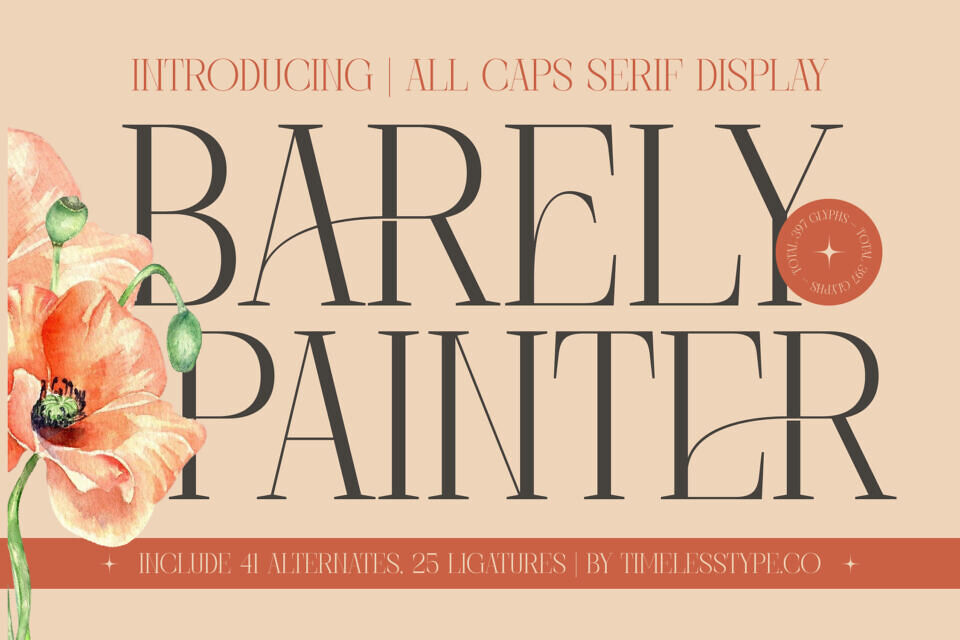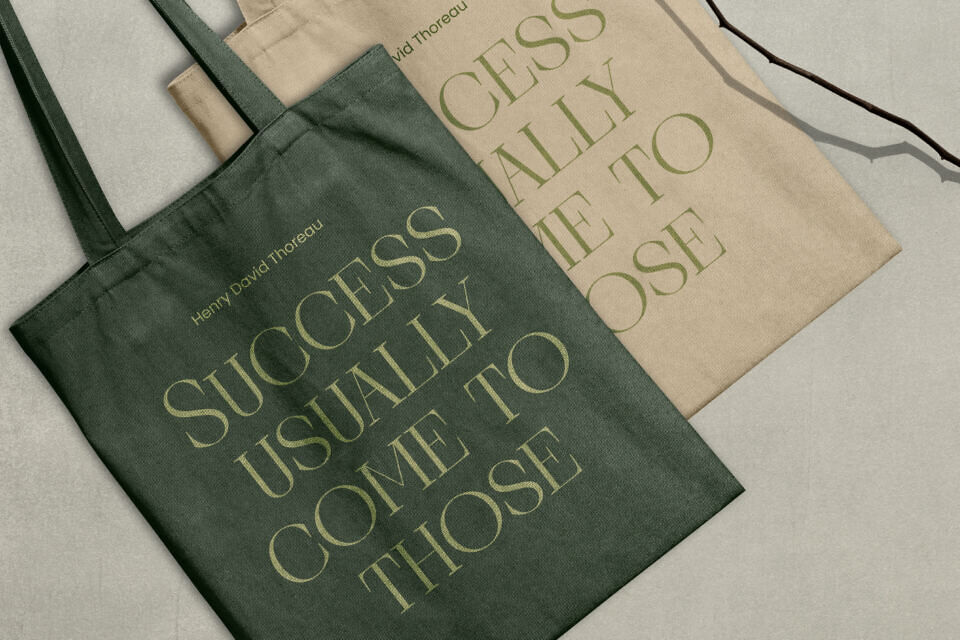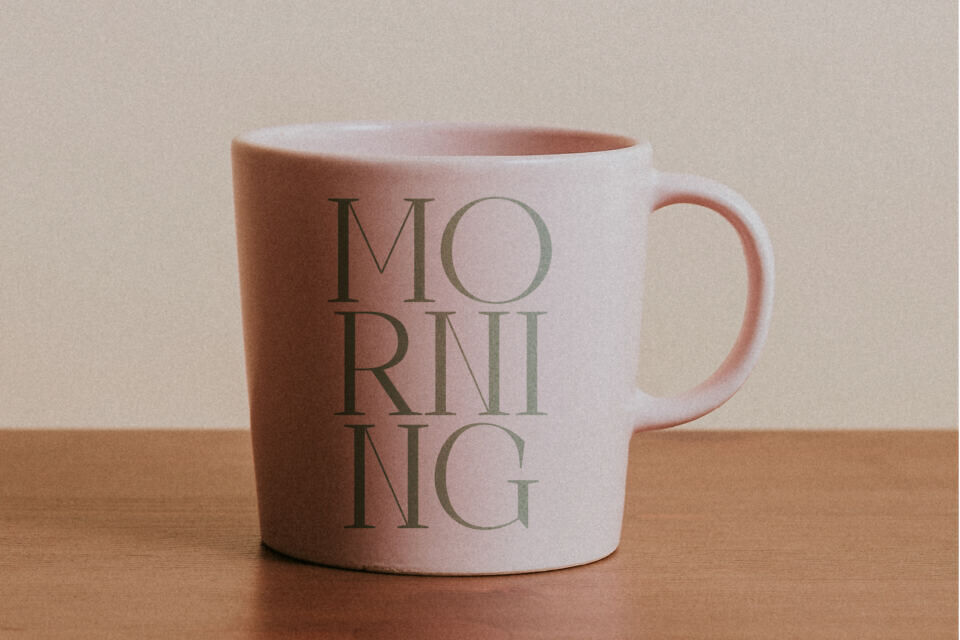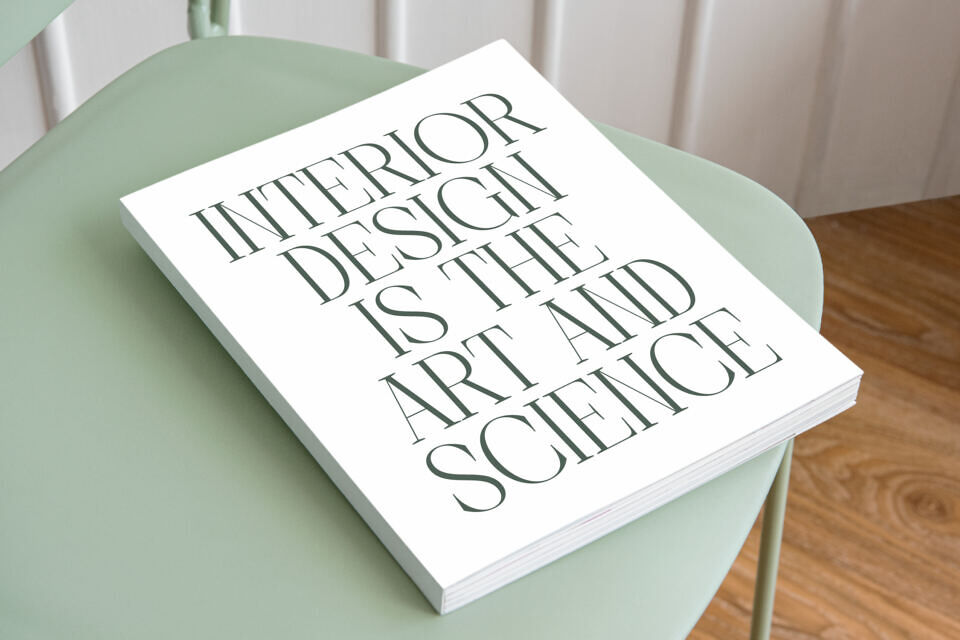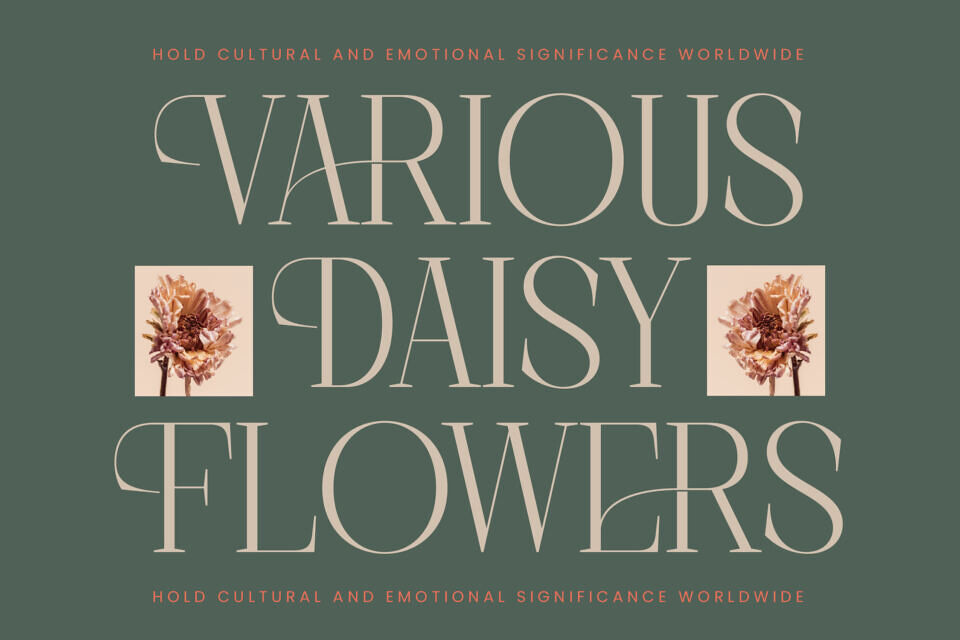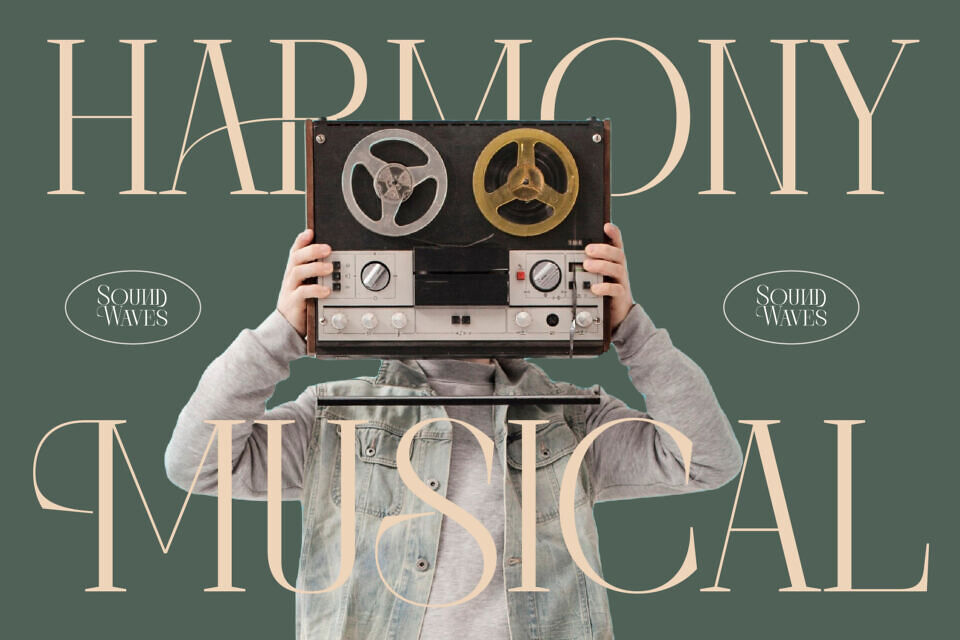
Barely Painter Font
Unleash unparalleled elegance with the All Caps Serif Display font “Barely Painter”. This exquisite high-contrast display font marries timeless sophistication with a contemporary edge, making it an instant classic. Its striking serifs and delicate hairlines create a visually captivating presence, perfect for conveying a sense of luxury and refinement in any design that demands attention and a premium aesthetic.
Ignite your creative vision with its exceptional typographic toolkit. Boasting 41 alternates and 25 ligatures among its 397 total glyphs, Barely Painter Font offers unparalleled design flexibility. Craft truly unique compositions and add a bespoke touch to your projects, ensuring every headline and logotype stands out with a distinctive flair that captivates and persuades.